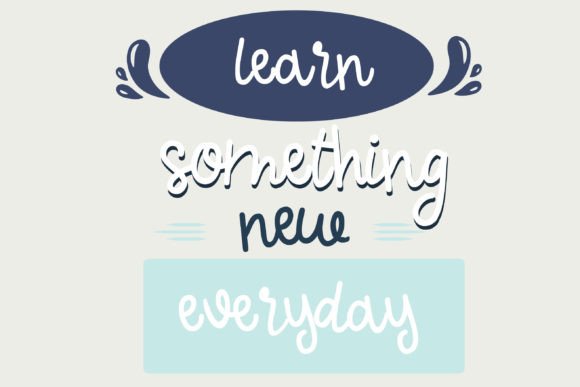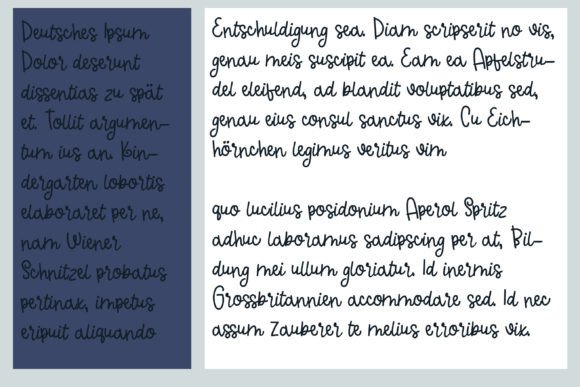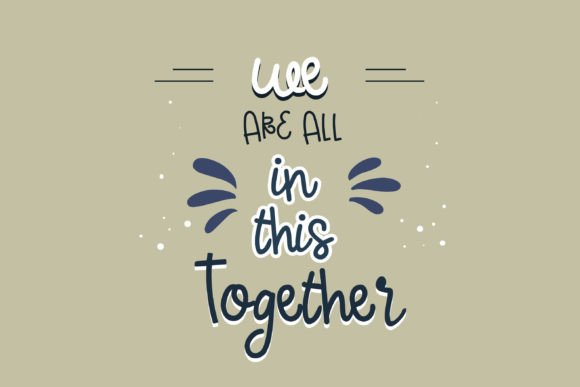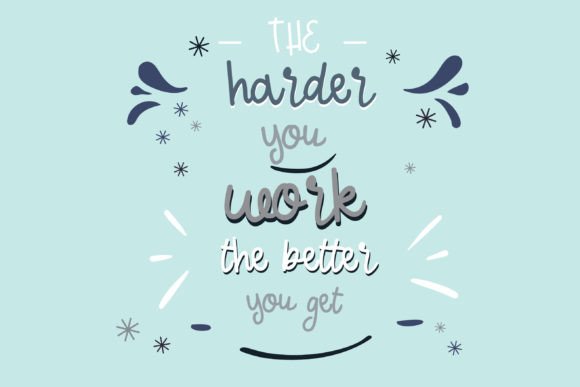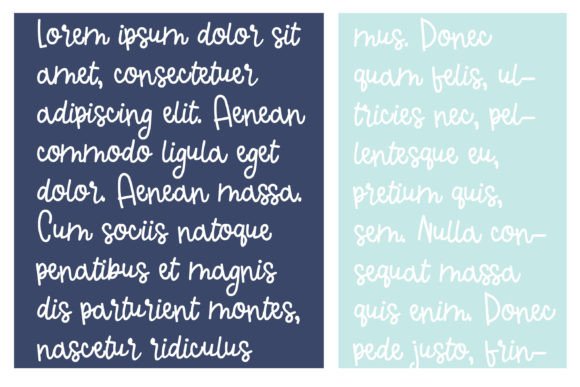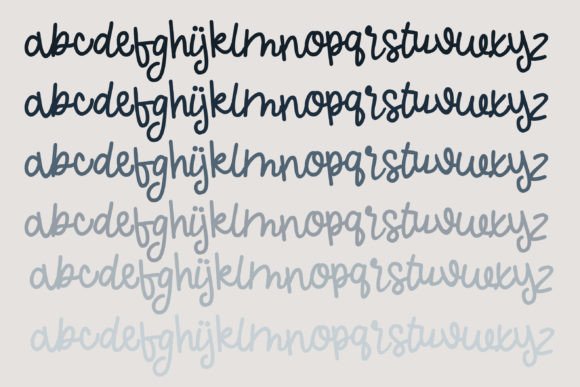
Introduction to Scoutmaster Font Font
Fonts play a crucial role in design, and the Scoutmaster Font font is a typeface that brings both character and versatility to any project. Whether you’re working on a branding project, a website, or a print design, the Scoutmaster Font font offers a unique style that can elevate your work.
This hand-written whimsical font has a bouncy baseline.
Two weights included A hand-crafted font is a font that is designed to look like it was written by hand.
Key Features of Scoutmaster Font Font
Why Choose Scoutmaster Font Font?
The Scoutmaster Font font is more than just a typeface – it’s a design tool that helps you communicate your message with style and clarity. Its unique character set and versatile design make it suitable for a wide range of applications, from elegant invitations to bold headlines.
With its carefully crafted letterforms and balanced proportions, the Scoutmaster Font font ensures readability and visual appeal across all mediums.
What makes Scoutmaster Font font special?
The Scoutmaster Font font stands out with its unique design, exceptional readability, and versatility across various design applications.